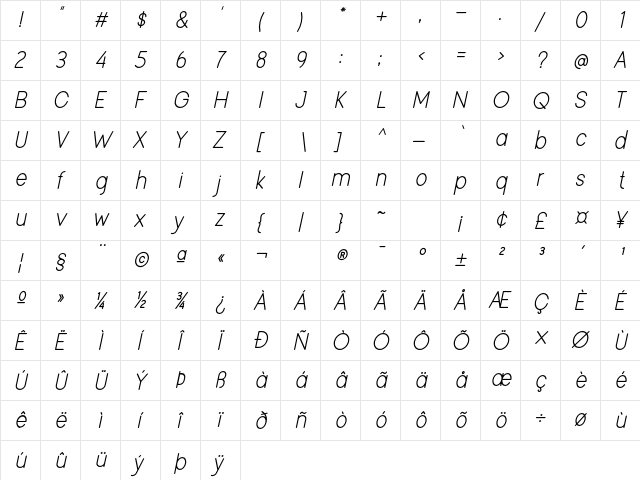
Viminalis Italic
| Foundry | High-Logic / Made with FontCreator |
| Designer | ekosamp |
Design Context for Viminalis Typeface
Viminalis takes a measured approach to typography — its balanced proportions and neutral character make it a reliable workhorse for both digital and print work. The slanted form adds forward momentum and visual energy.